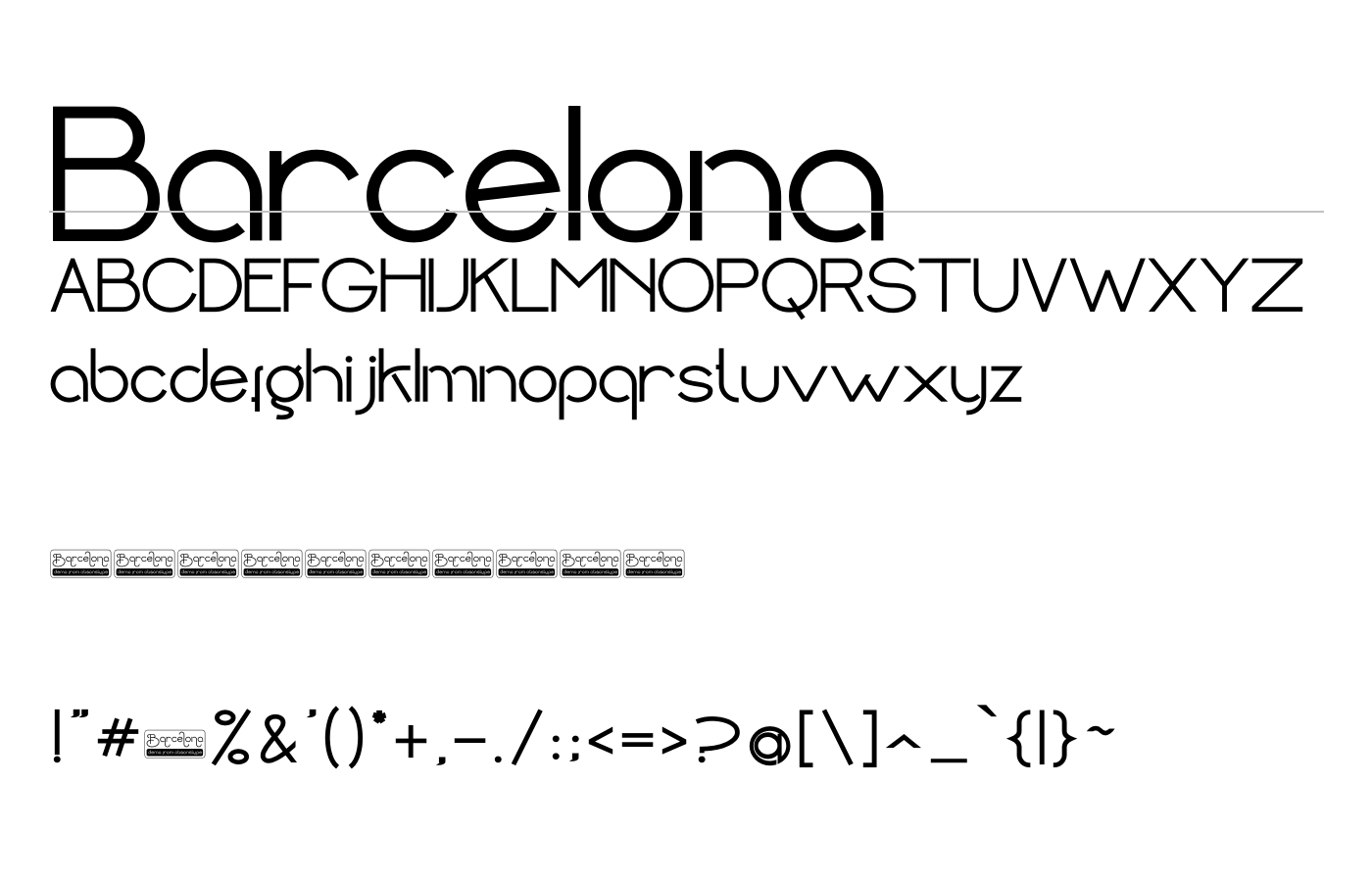
Barcelona is a sleek, modern sans serif font with a clean, geometric design that combines thin and consistent strokes for a light, airy feel. Its tall x-height and unique letterforms, like the single-story ‘a’ and distinctive tail on the ‘Q’, give it a stylish, contemporary personality ideal for branding, editorial headlines, and trendy digital projects. This font’s graceful simplicity works beautifully in fashion, lifestyle, and luxury contexts where a sophisticated yet approachable look is desired.
Barcelona Font
About Barcelona Font
| Font family | Barcelona Font |
| Designer | Sarwo Edhi Prayitno |